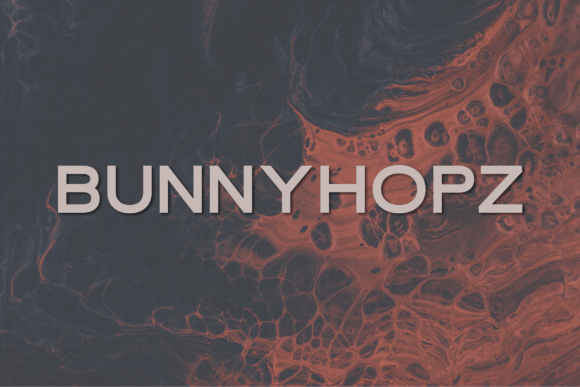
Discover the Modern Charm of Bunnyhopz Font
I’ll never forget the time I was working on a wedding invitation project, and my client asked for a font that was both elegant and playful. I scoured the internet, trying out font after font, but nothing seemed quite right. That was until I stumbled upon Bunnyhopz, a modern, classy sans serif typeface that stole my heart. In this article, I’ll share my love for Bunnyhopz, its features, and how to make the most of this versatile font.
What Makes Bunnyhopz Special?
Bunnyhopz is a sans serif typeface that boasts upper characters, numbers 0-9, and a range of punctuation and symbols. Its clean lines and modern aesthetic make it perfect for a variety of design projects, from logos and weddings to invitations, quotes, advertisements, print, magazines, and more!
An Honest Review of Bunnyhopz
- ✅ Extremely versatile and adaptable to different design projects
- ✨ Beautifully crafted with clean lines and a modern aesthetic
- ✅ Includes upper characters, numbers, punctuation, and symbols
- ✨ Works well in both digital and print formats
- ⚠️ Limited availability of stylistic alternates
- 🤔 May not be the best fit for very formal or traditional designs
The Backstory of Bunnyhopz
Bunnyhopz was designed with the intention of creating a modern, classy sans serif typeface that would be versatile and adaptable to different design projects. The designer aimed to craft a font that would be both elegant and playful, making it perfect for a wide range of applications.
Q: What is the best use for Bunnyhopz font?
A: Bunnyhopz is an extremely versatile font, perfect for logos, weddings, invitations, quotes, advertisements, print, magazines, and more!
Q: Is Bunnyhopz suitable for body text?
A: While Bunnyhopz is a beautiful font, it may not be the best fit for long-form body text. Its clean lines and modern aesthetic make it more suitable for headings and titles.
Q: Is Bunnyhopz available in different weights?
A: Yes, Bunnyhopz comes in different weights, making it suitable for a range of design applications.